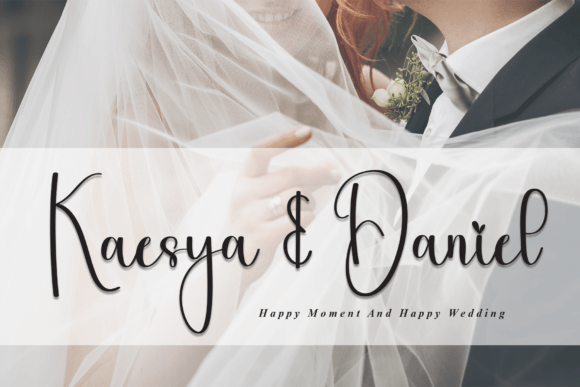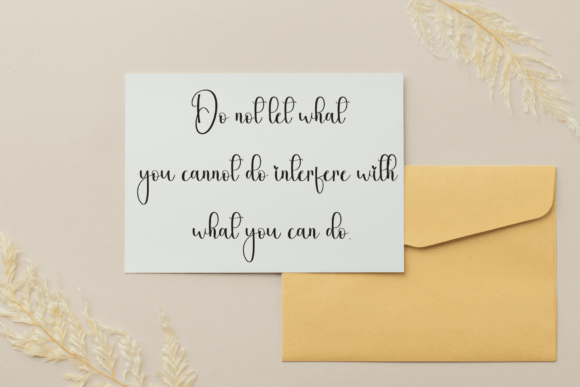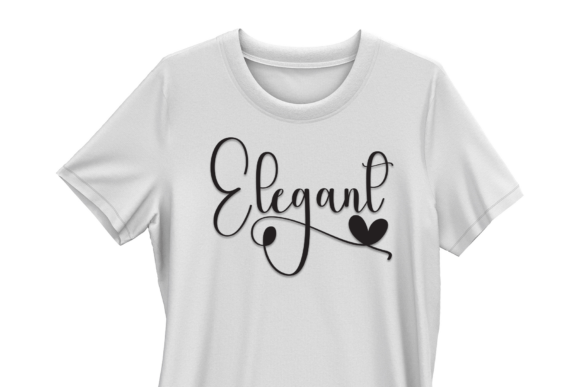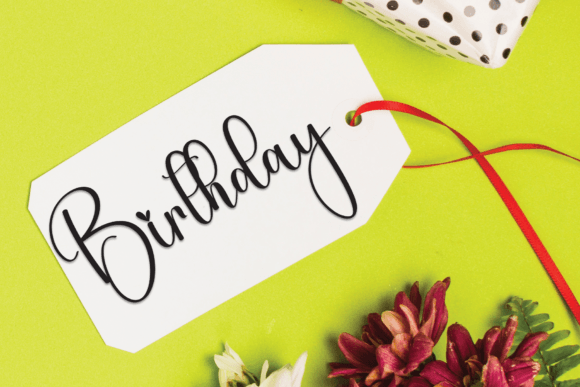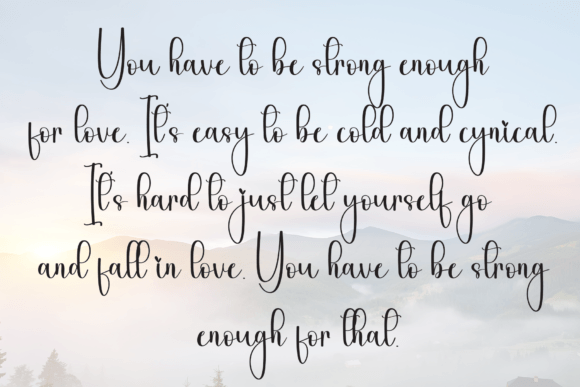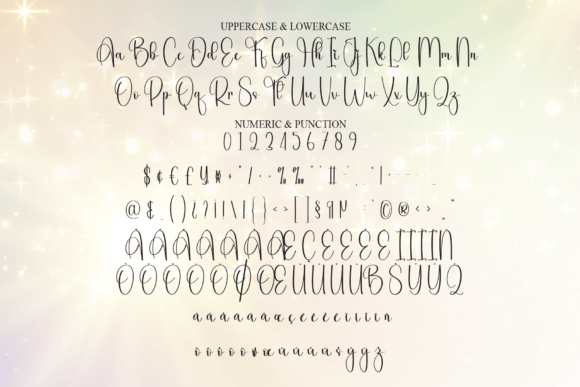
Introducing Brighteen Font: The Charming Handwritten Display Font for Your Creative Endeavors
Are you looking for a font that can add a touch of warmth and character to your designs? Look no further than Brighteen Font, a charming and amiable handwritten display font that’s perfect for a variety of creative projects. With its delightful and lively style, this font is flawlessly suited for crafting enchanting wedding invitations, heartfelt cards, or any design that craves a dash of merriment.
A Font that Radiates Warmth and Character
Brighteen Font is designed to bring a fun and intimate touch to your creations. Its handwritten style is reminiscent of a warm conversation with a friend, making it perfect for designs that require a personal and approachable tone. Whether you’re creating wedding invitations, greeting cards, or social media graphics, this font is sure to make your designs stand out from the crowd.
Wedding invitations and cards are a great way to showcase the beauty of Brighteen Font. Its elegant and cursive style makes it perfect for formal and informal wedding invitations, save-the-date cards, and thank-you notes. The font’s charming and amiable nature also makes it suitable for baby shower invitations, birthday cards, and other celebrations.
Adding a Touch of Whimsy to Your Designs
Brighteen Font is not just limited to formal designs. Its playful and lively style also makes it perfect for adding a touch of whimsy to your designs. Use it to create fun and quirky social media graphics, blog posts, or even packaging designs. The font’s versatility ensures that it can be used in a variety of creative projects, from digital designs to print materials.
Key Features of Brighteen Font
- Handwritten style: Brighteen Font features a beautiful handwritten style that’s perfect for adding a personal touch to your designs.
- Delightful and lively: The font’s delightful and lively style makes it perfect for designs that require a touch of whimsy and fun.
- Charming and amiable: Brighteen Font’s charming and amiable nature makes it perfect for wedding invitations, cards, and other celebrations.
- Perfect for digital and print designs: The font is suitable for a variety of creative projects, from digital designs to print materials.
Tips for Using Brighteen Font
Here are some tips for using Brighteen Font in your designs:
- Pair it with a simple background: Brighteen Font looks best when paired with a simple background that allows the font to take center stage.
- Experiment with colors: The font looks great in a variety of colors, so don’t be afraid to experiment and find the perfect color scheme for your design.
- Use it for headings and titles: Brighteen Font is perfect for headings and titles, but it can also be used for body text in smaller sizes.
Brighteen Font is a charming and amiable handwritten display font that’s perfect for adding a touch of warmth and character to your designs. Its delightful and lively style makes it flawlessly suited for crafting enchanting wedding invitations, heartfelt cards, or any design that craves a dash of merriment. With its versatility and key features, this font is sure to become a favorite among designers and crafters.